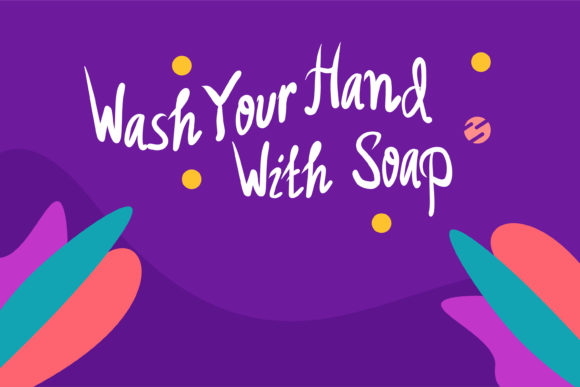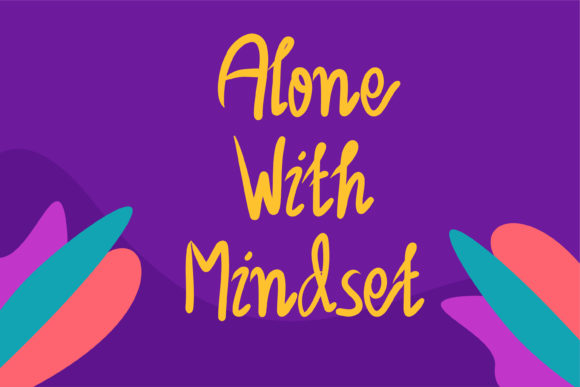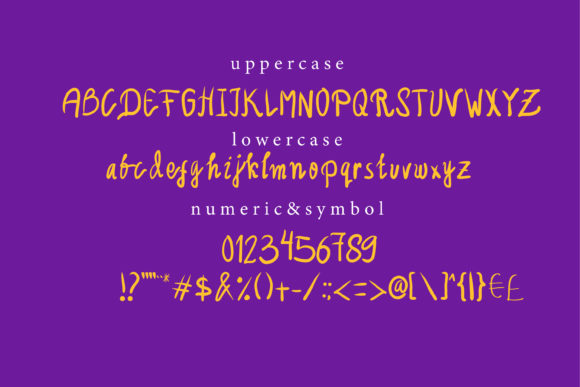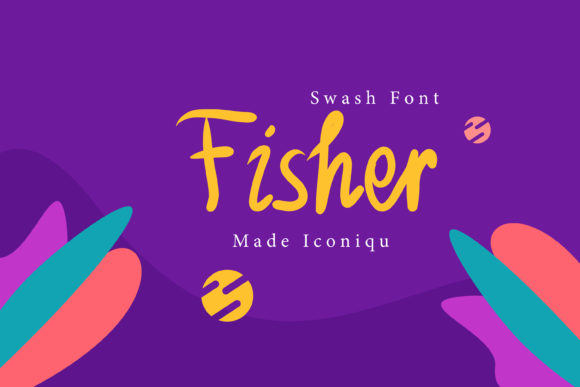
Fisher Font: Elevate Your Craft Designs with a Unique Handwritten Style
In the world of design, fonts play a crucial role in conveying the message and aesthetic of a project. For crafters and designers looking to add a personal touch to their creations, the Fisher font is an excellent choice. This unique handwritten font is simple, easy to use, and incredibly versatile, making it perfect for a wide range of craft designs.
What is Fisher Font?
Fisher font is a distinctive handwritten typeface that exudes a sense of elegance and simplicity. Its unique characters are carefully crafted to provide a personal and creative feel to any design project. Whether you’re working on a DIY craft, a branding project, or a digital design, Fisher font can add that extra special something to make your work stand out.
Key Features of Fisher Font
- Unique Handwritten Style: Fisher font boasts a one-of-a-kind handwritten style that adds a personal touch to your designs.
- Simple and Easy to Use: Despite its unique appearance, Fisher font is incredibly easy to use, making it accessible to designers of all skill levels.
- Versatile: Fisher font can be used in a variety of design projects, from craft designs to digital projects, and everything in between.
- Highly Readable: The font is designed to be highly readable, ensuring that your message is conveyed clearly and effectively.
How to Use Fisher Font in Your Craft Designs
One of the best things about Fisher font is its versatility. Here are some ideas for incorporating Fisher font into your craft designs:
- DIY Crafts: Use Fisher font to add a personal touch to your DIY craft projects, such as homemade cards, gift tags, and scrapbooking.
- Branding Projects: Fisher font can be used to create unique and eye-catching branding materials, such as logos, business cards, and brochures.
- Digital Designs: Fisher font can also be used in digital designs, such as social media graphics, blog posts, and website headers.
Tips for Pairing Fisher Font with Other Design Elements
To get the most out of Fisher font, it’s essential to pair it with other design elements that complement its unique style. Here are some tips:
- Use Contrasting Colors: Pair Fisher font with contrasting colors to make it stand out and add visual interest to your design.
- Add Simple Graphics: Simple graphics, such as lines and shapes, can help to enhance the overall aesthetic of your design and create a cohesive look.
- Experiment with Texture: Adding texture to your design can add depth and interest. Experiment with different textures, such as paper or fabric, to create a unique look.
Fisher font is a unique and versatile handwritten font that’s perfect for crafters and designers looking to add a personal touch to their creations. With its simple and easy-to-use design, Fisher font can be used in a wide range of design projects, from DIY crafts to digital designs. By pairing Fisher font with other design elements, such as contrasting colors, simple graphics, and texture, you can create stunning designs that showcase your creativity and style.
Whether you’re a seasoned designer or a crafty DIY enthusiast, Fisher font is an excellent choice for anyone looking to elevate their design game. So why not give Fisher font a try and see how it can transform your craft designs?